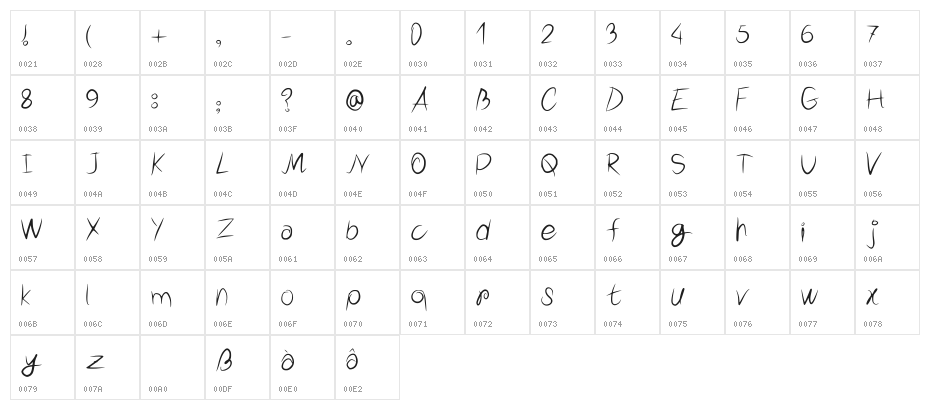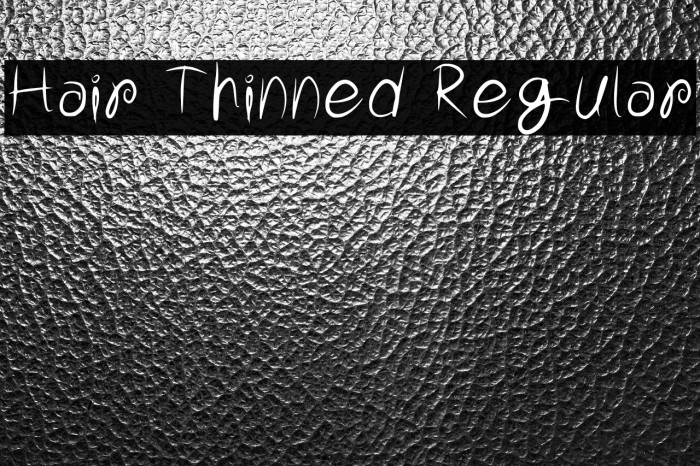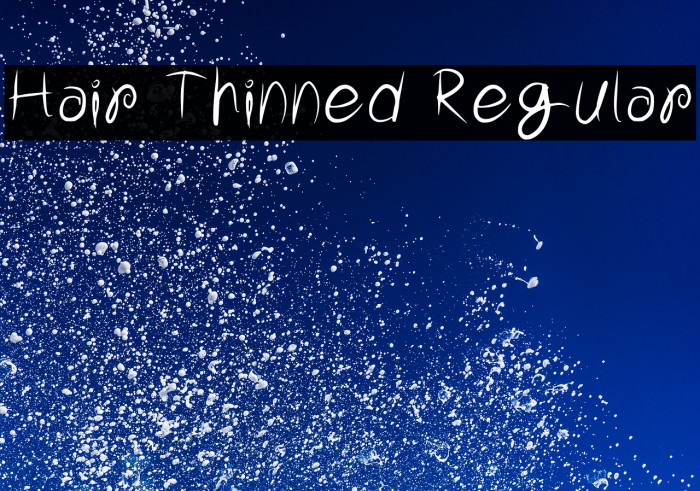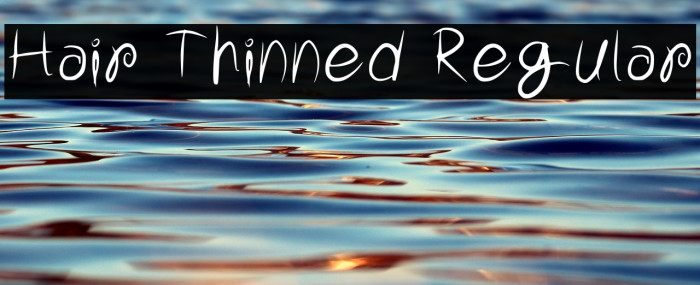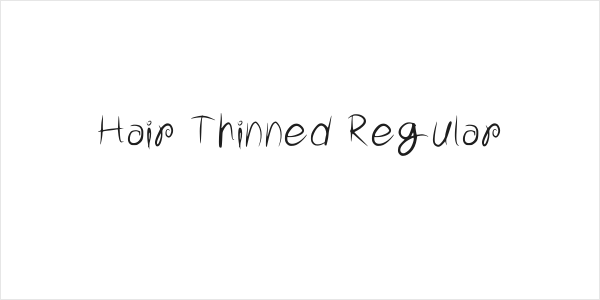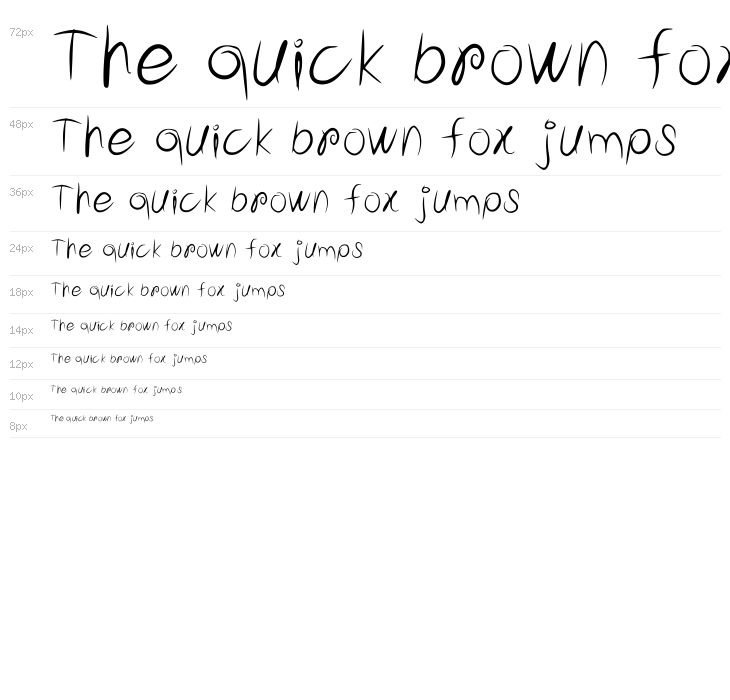
Hair Thinned Regular Font
Hair Thinned Regular Description
This font features a unique, hand-drawn style with thin, elongated strokes that give it a whimsical and artistic appearance. The characters are slightly irregular, adding a playful and informal touch. The uppercase letters are tall and narrow, while the lowercase letters maintain a consistent flow with a slight slant, enhancing the casual feel. The numbers are distinct and maintain the same artistic flair, making them easily readable yet visually interesting. Special characters are creatively designed, fitting seamlessly with the overall style. This font's thin lines and artistic curves make it suitable for creative projects that require a personal touch.
| Overall Style | Artistic |
| Use Case | Logos, Posters, Creative projects |
| Proposed Projects | Ideal for greeting cards, artistic posters, children's book illustrations, and creative branding. |